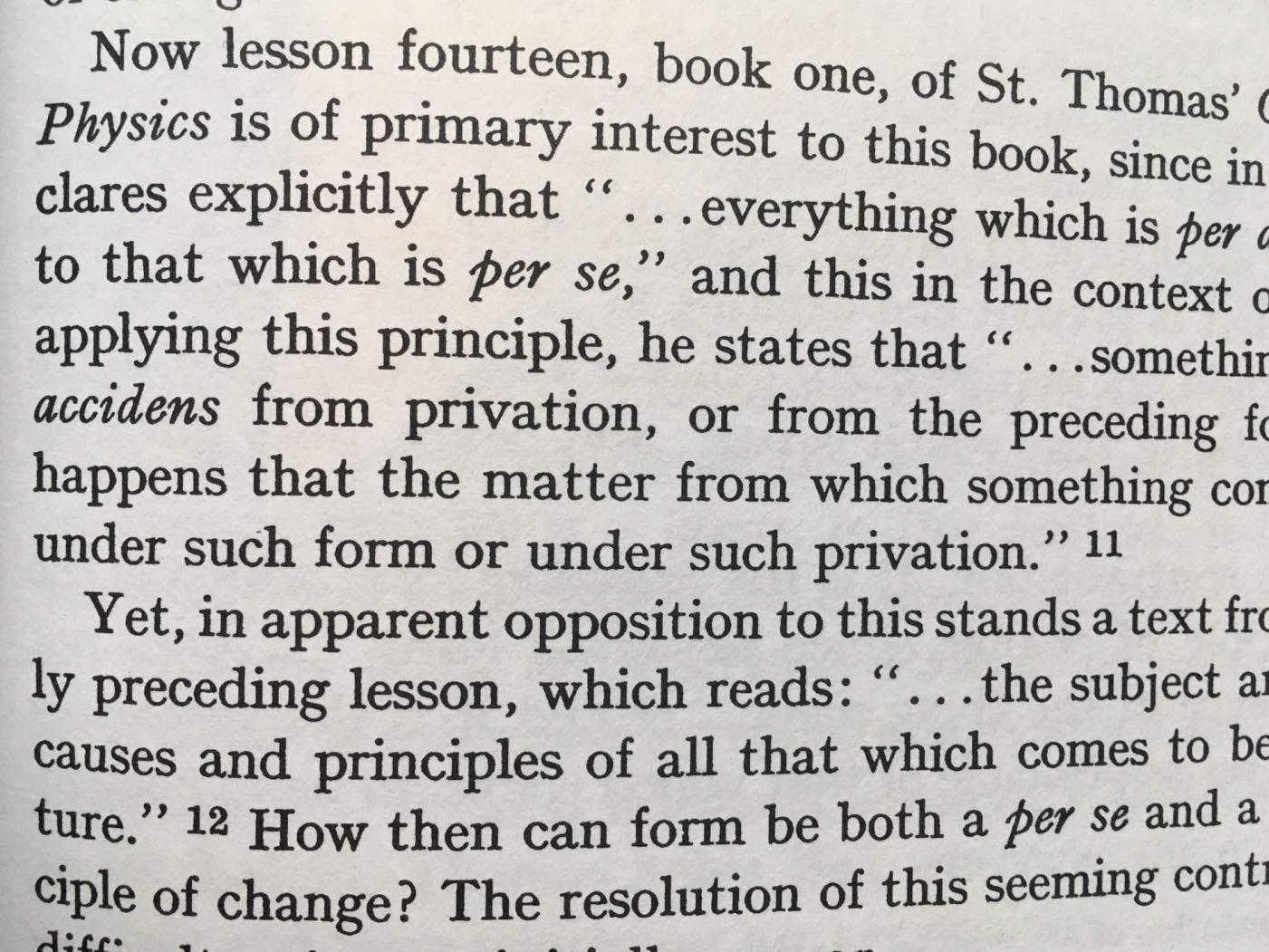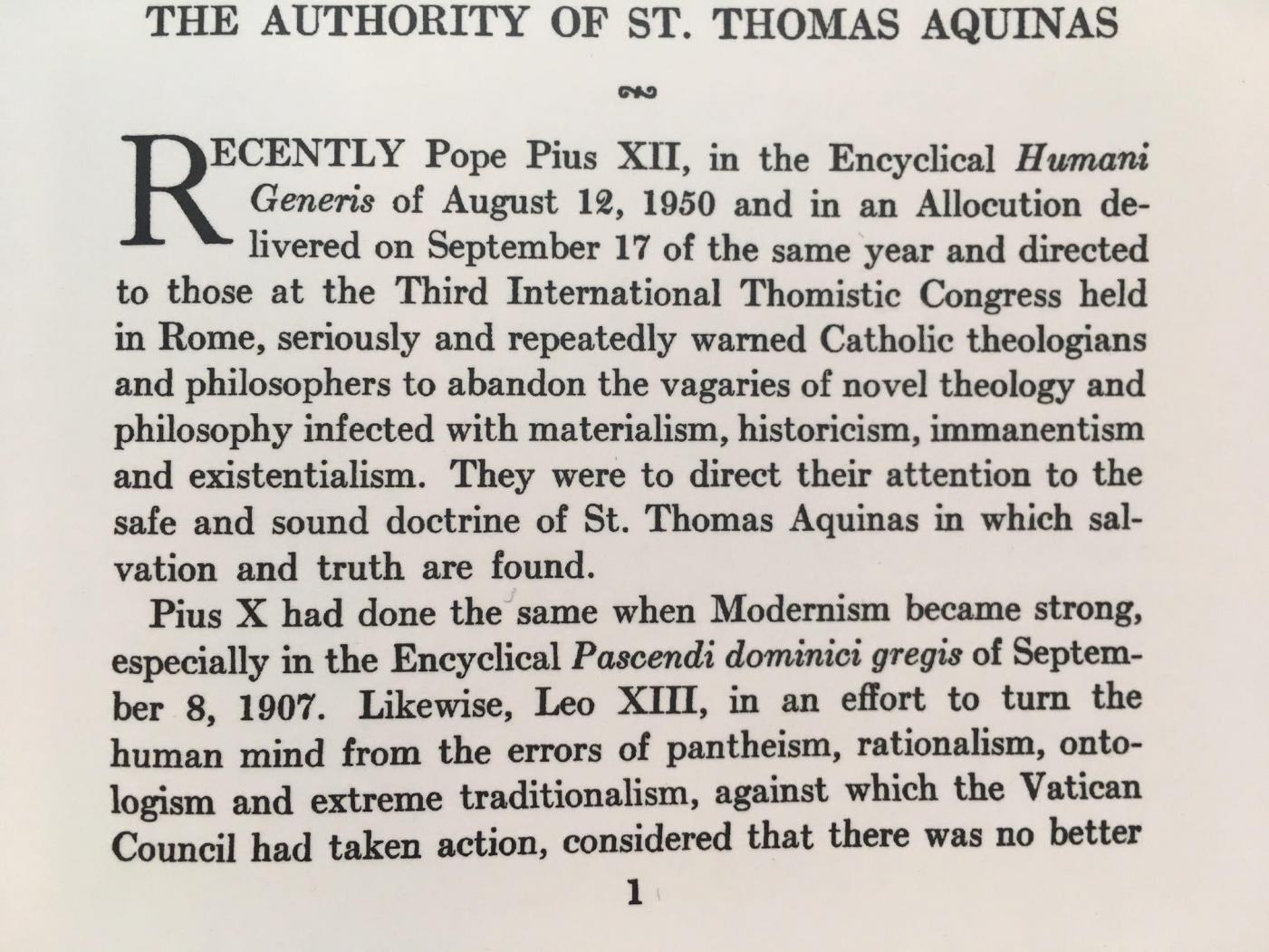
Font from 1950s Theology/Philosophy Journal (The Thomist)
Greetings!  : I am newbie looking both to identify this font and to find something that approximates it for us in a print format; probably since this journal was typeset the match will only be (very lol) approximate.  I don't know exactly why but I just love looking at it and reading it.
Also, the second image is from a very recent (and presumably not type-set) academic volume (2017) - I also like this font and find it somewhat similar.  Maybe that 2nd font - whatever it is? - might be a good candidate.
P.S., is the second sample type-set?  It appears to have been published in 1972 - though it was printed in 2017.
Possible design matches are Didot / Theano and Old Standard, the latter two with open licenses (free to use or alter for any purpose).
To me Old Standard seems like a match for your first sample, with its narrower letter forms.